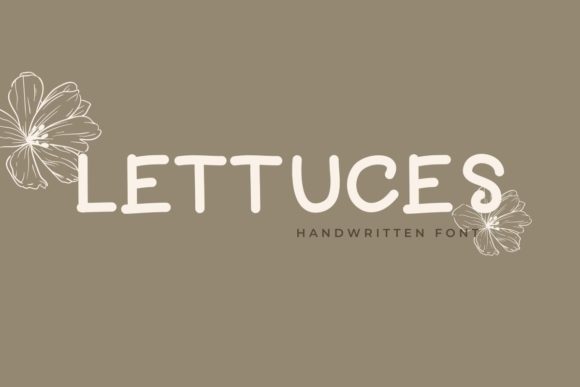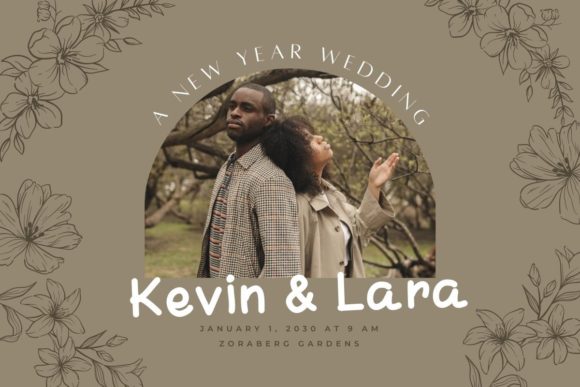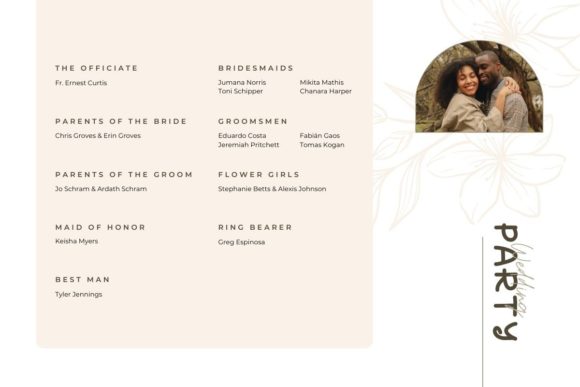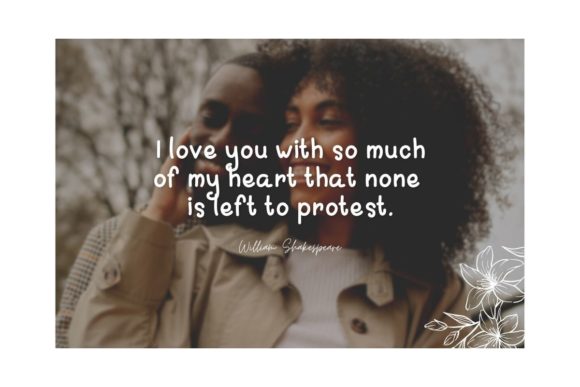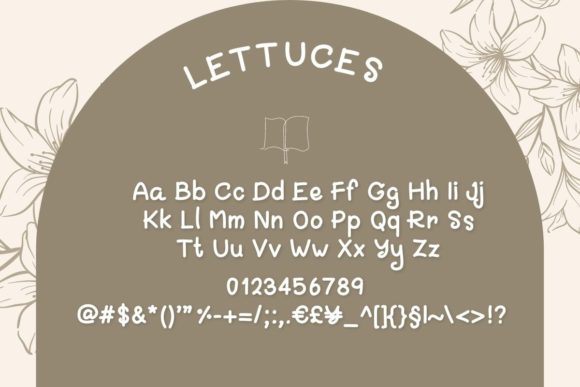
Lettuces Font
About Lettuces Font
“Lettuces” is a handwritten font suitable for logos, branding, wedding invitations, business cards, greeting cards, posters, magazines, social media, planner prints, and websites. It is especially great for children’s designs, t-shirts, mugs, posters, and more. Add this font to your favorite creative ideas, and notice how it makes them come alive!